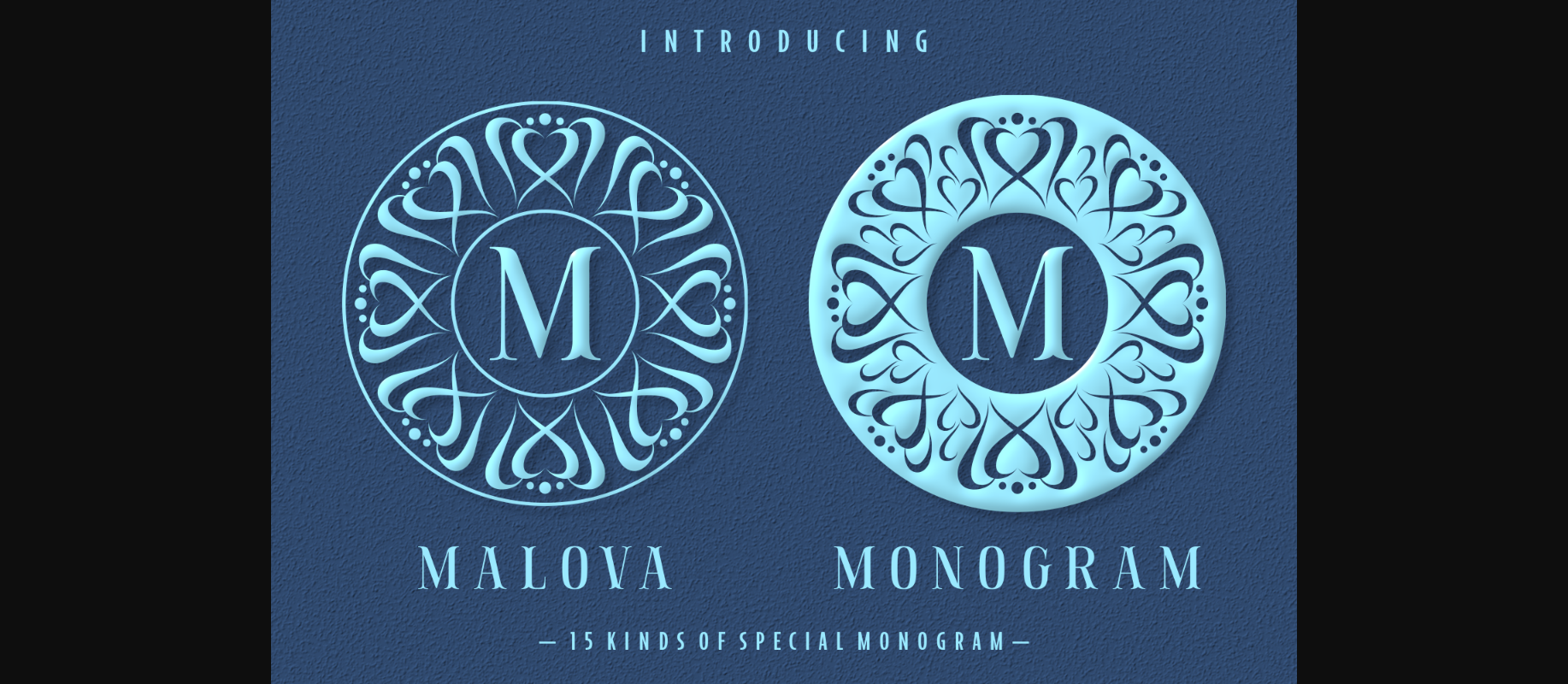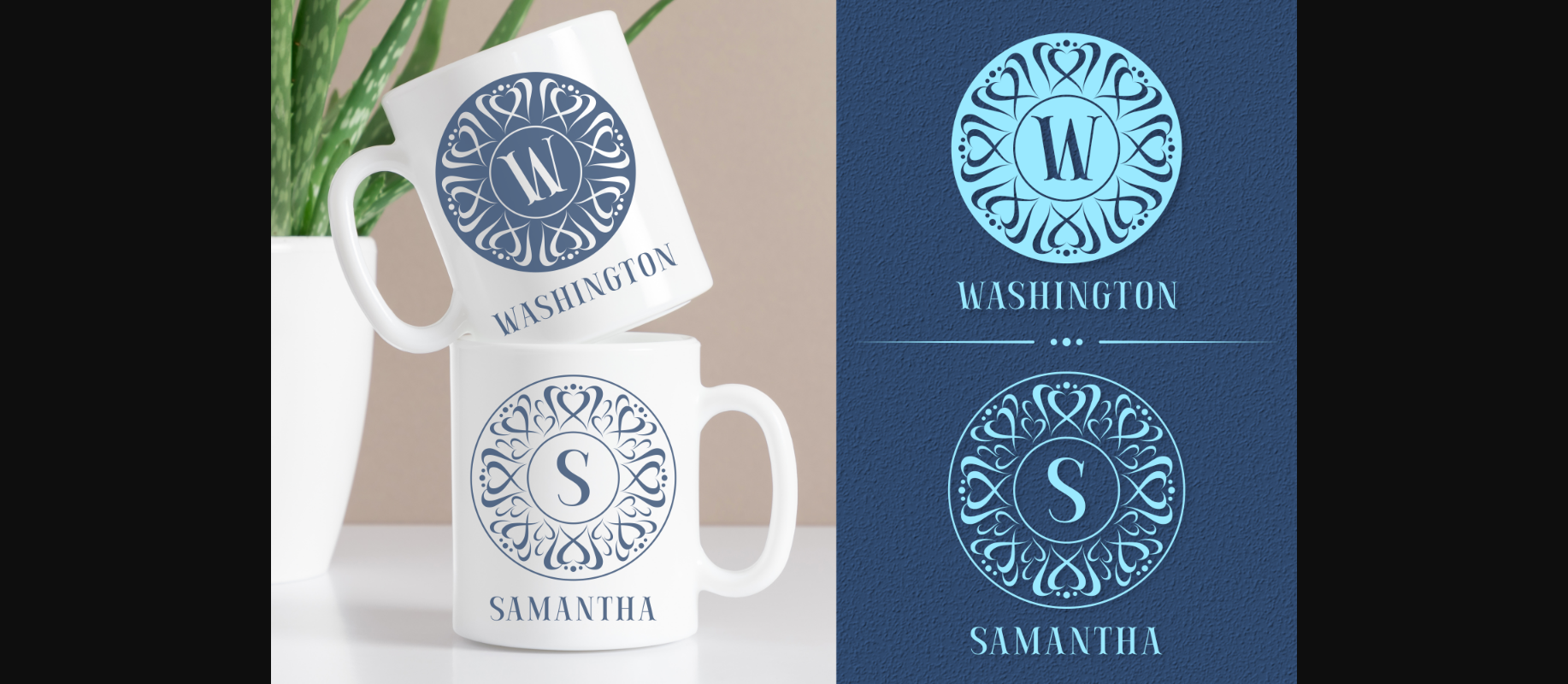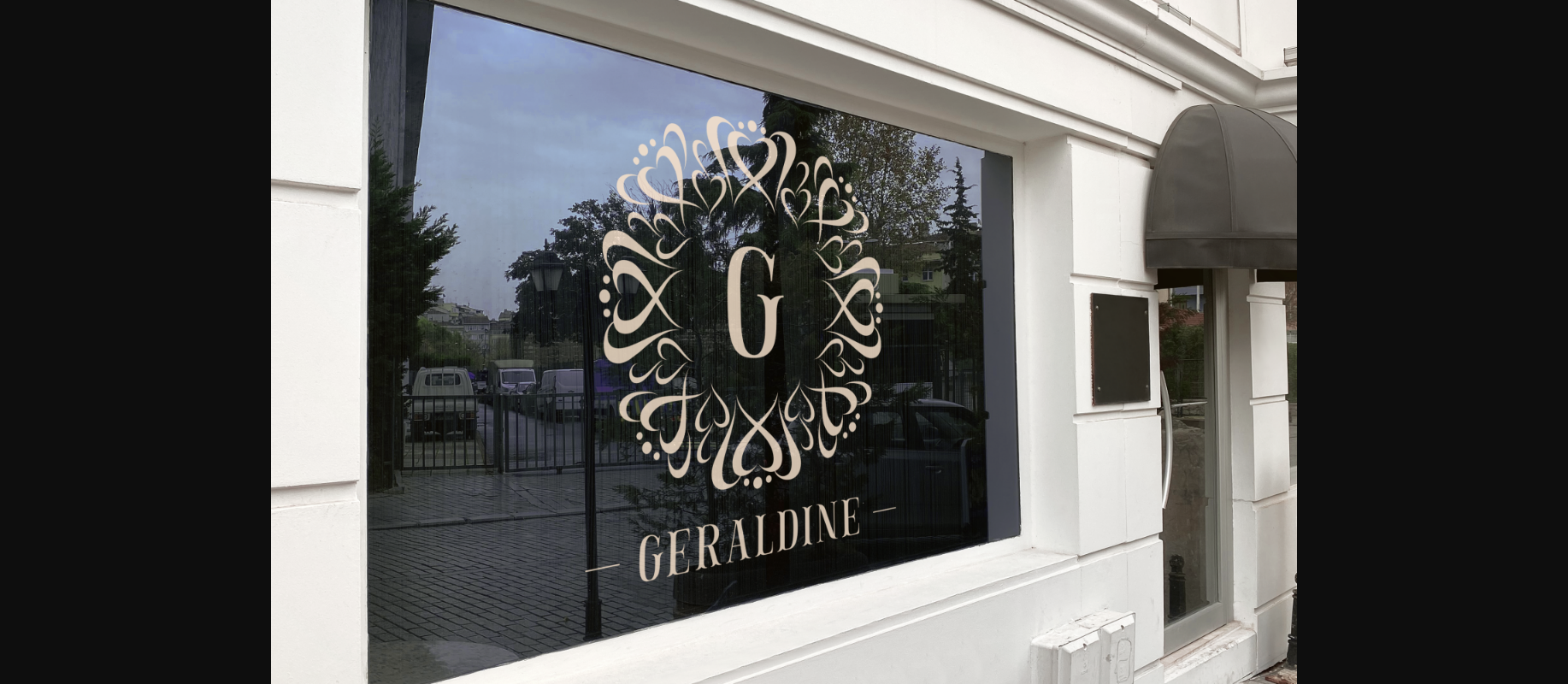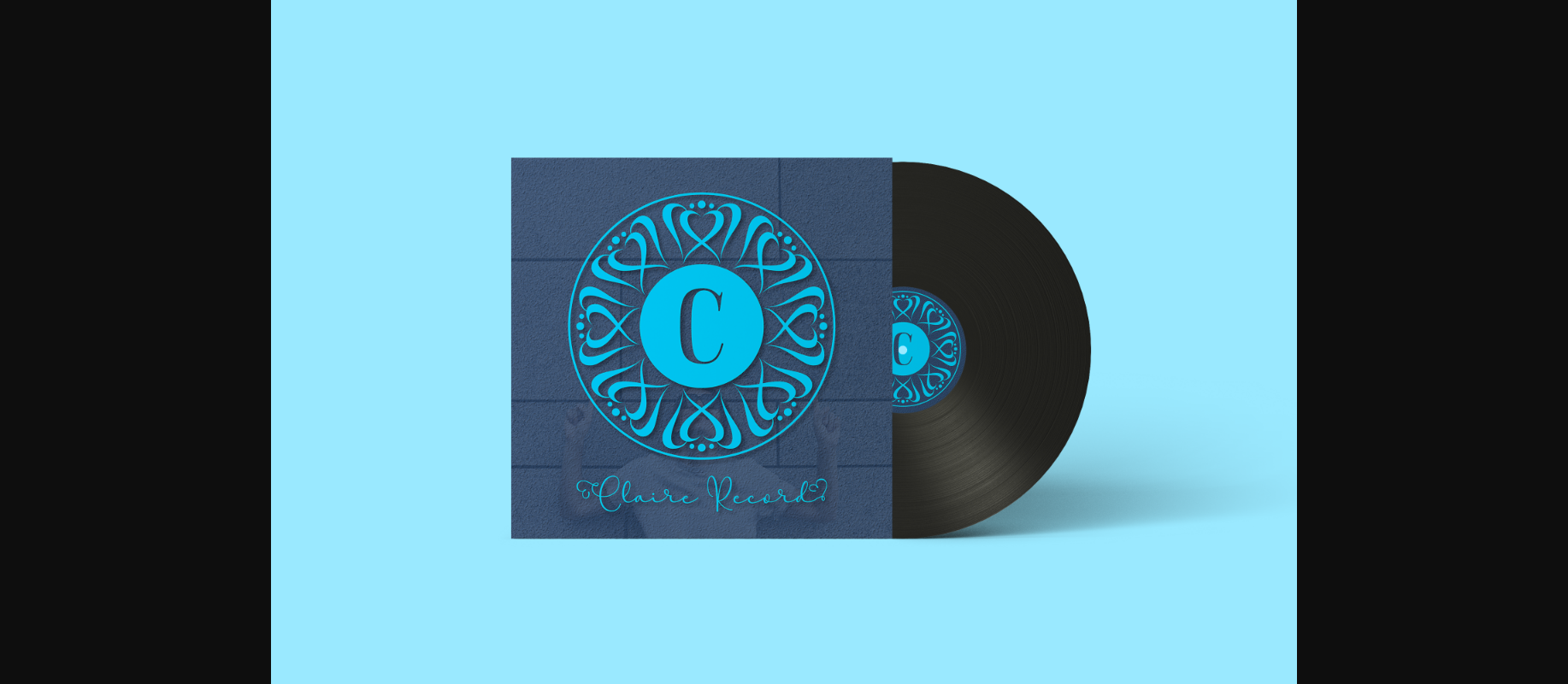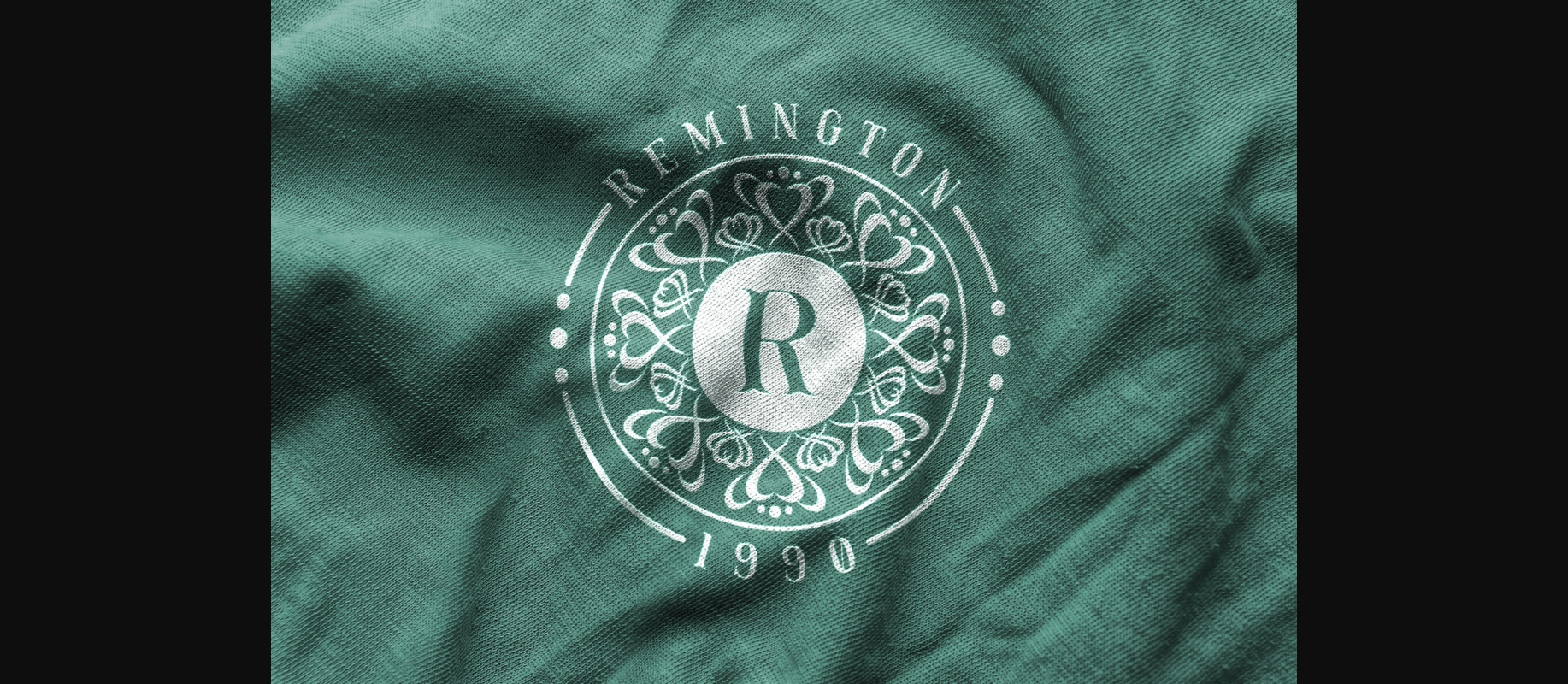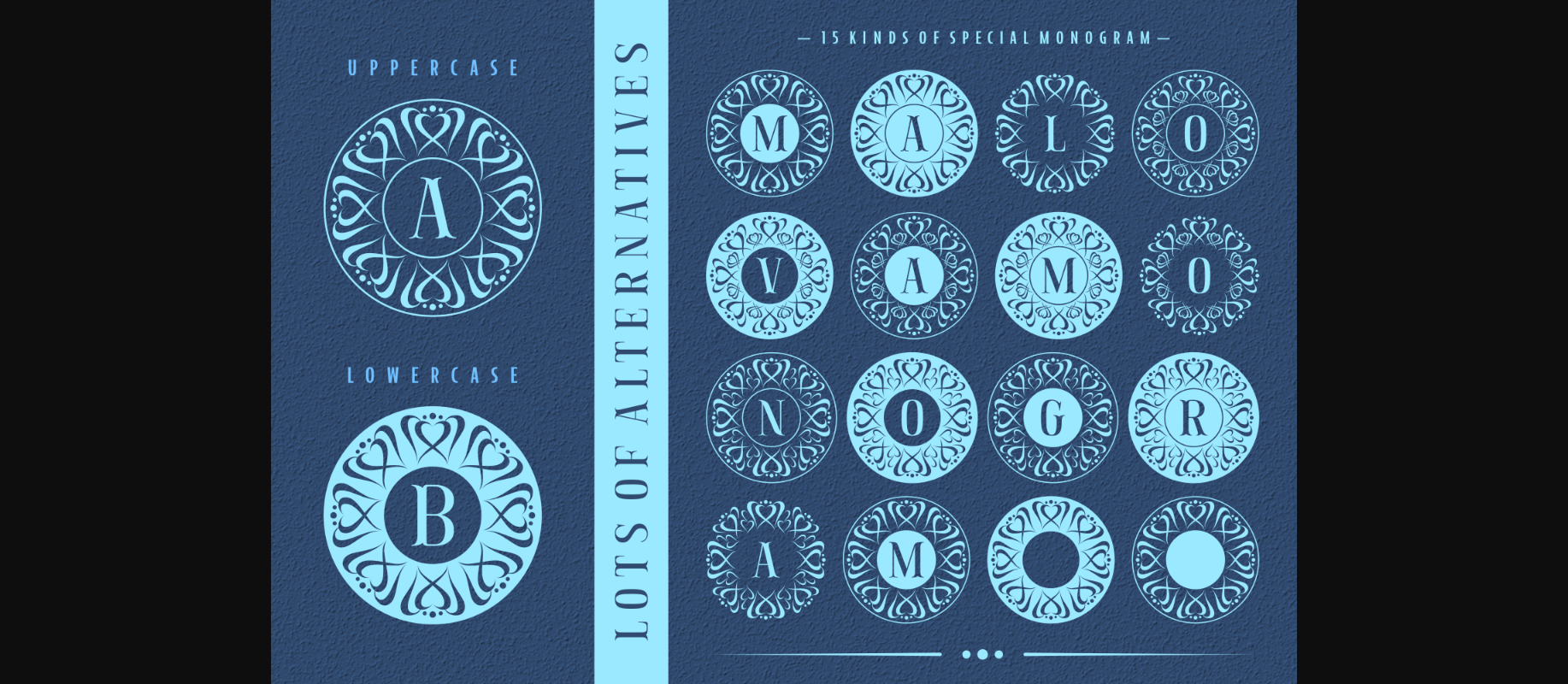
Malova is an incredibly detailed and chic decorative font. Trendy and stylish, this font will elevate each of your creations. Malova is PUA encoded which means you can access all of the glyphs and swashes with ease!